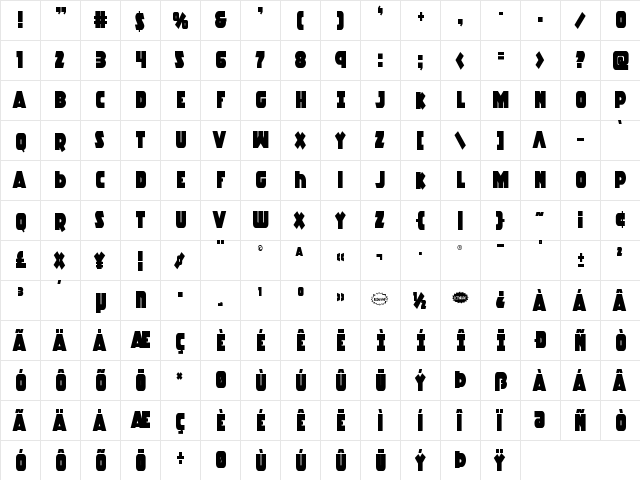
Racket Squad Condensed
Design Context for Racket Squad Condensed Typeface
Racket Squad Condensed offers clean, dependable letterforms without strong stylistic allegiance, making it a practical choice for designers who need flexibility. The condensed width makes it efficient for tight spaces without sacrificing legibility.